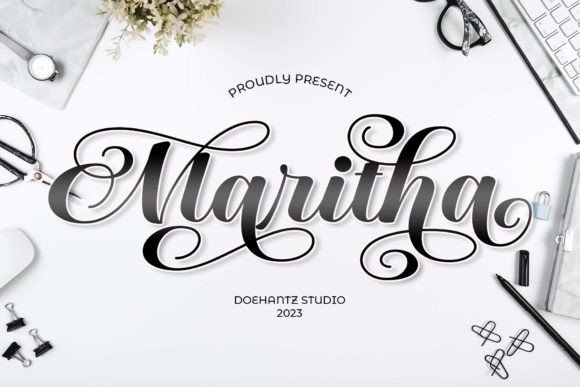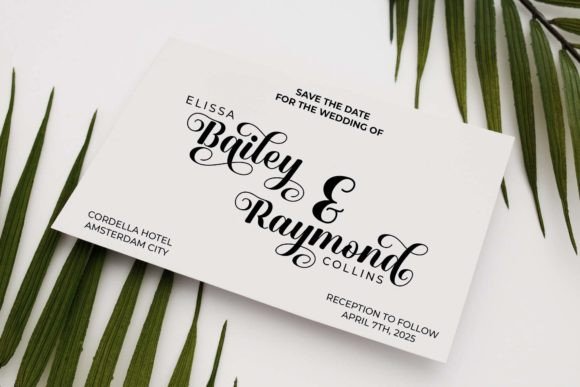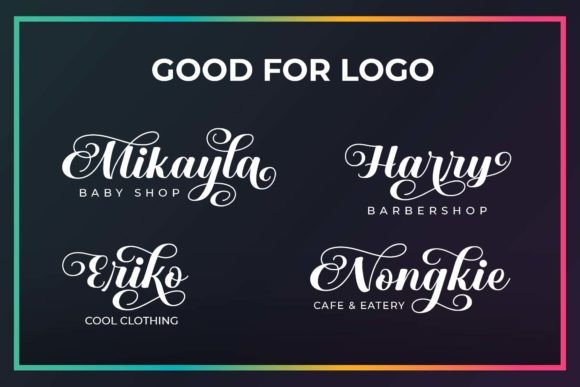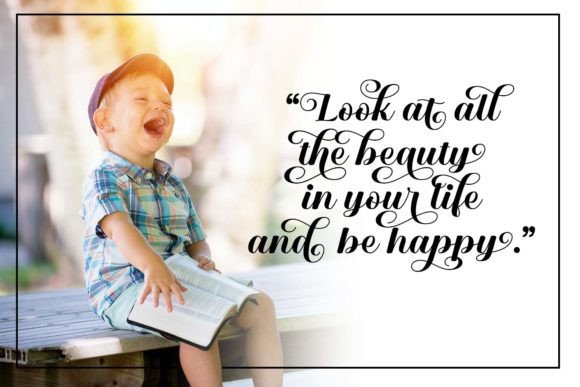
Maritha Font: Elegant Calligraphy Script for Wedding Logo Design
About the Maritha Font
Make a bold statement with Maritha Font, a powerful and memorable font. Maritha is a gorgeous, cursive, and thick-lettered handwritten font, crafted to give your headlines and logotype projects a stylish touch. This font reads strong, confident, and dynamic and can add tons of nostalgic character to your designs. Add it to any of your designs and enjoy the results!
Maritha excels in headlines, logos, and short, impactful taglines where its bold, confident strokes make a statement. It’s ideal for branding projects aiming for a sophisticated yet approachable feel, particularly those in the fashion, beauty, or lifestyle sectors. Avoid using Maritha for body text or lengthy paragraphs; its thick strokes and cursive nature hinder readability at smaller sizes.
Pairing Maritha with a clean sans-serif like Montserrat or a geometric sans-serif like Futura creates a balanced contrast, tempering its handwritten exuberance with modern clarity. For a warmer feel, consider pairing it with a classic serif like Garamond or a slightly more playful script font that complements its thickness but offers a different character.
Maritha’s personality is best described as bold and sophisticated. Its strong strokes and confident curves convey luxury and a touch of vintage charm, making it unsuitable for projects requiring a minimalist or highly technical aesthetic.
Maritha Font Usage Examples
Maritha Font Example